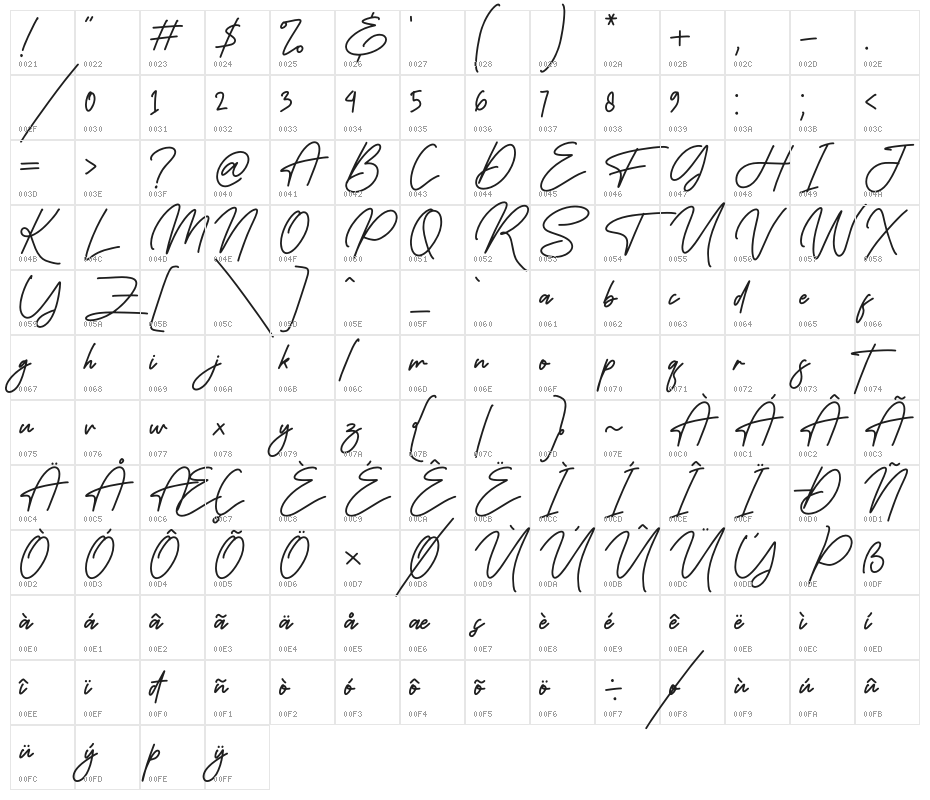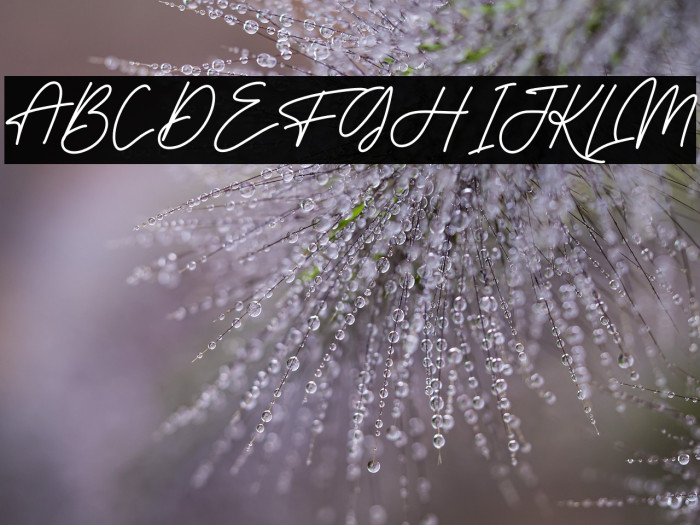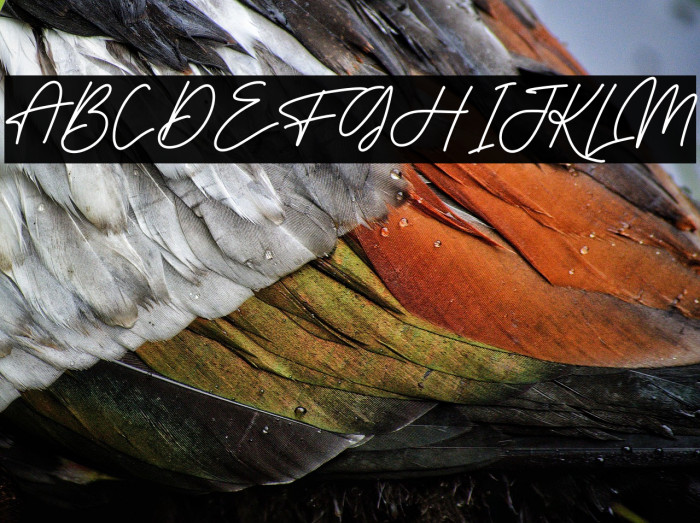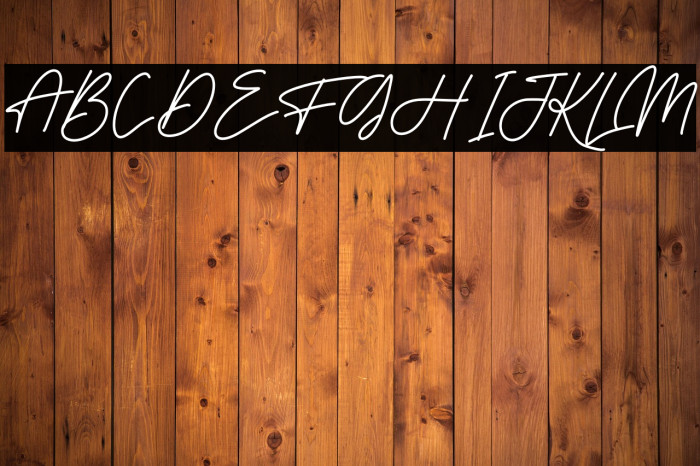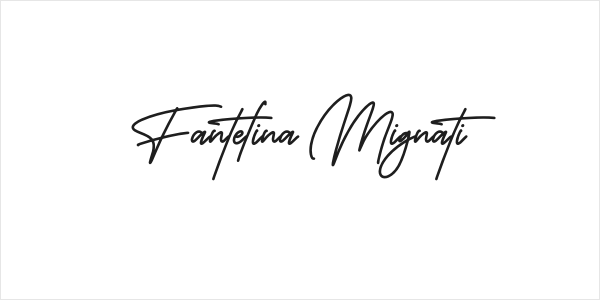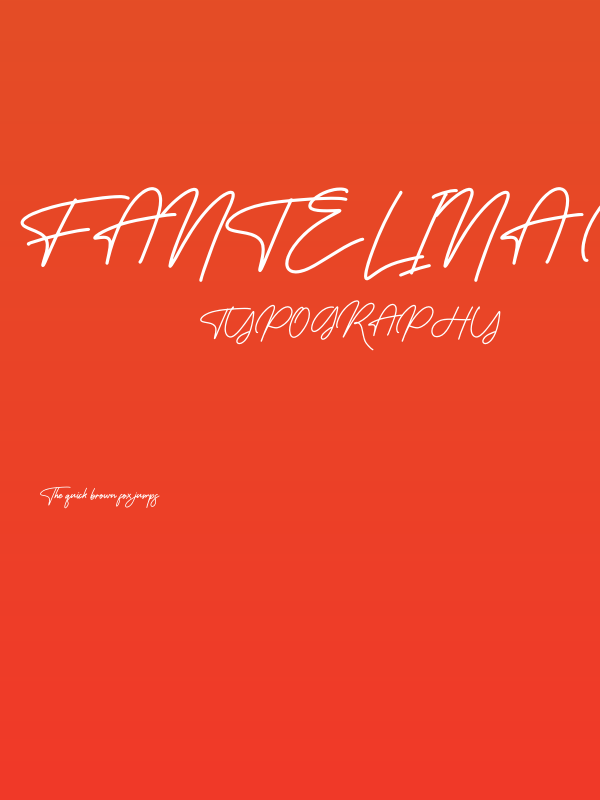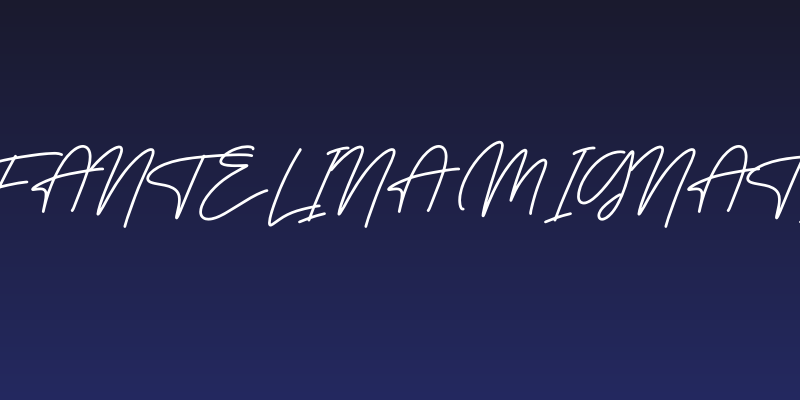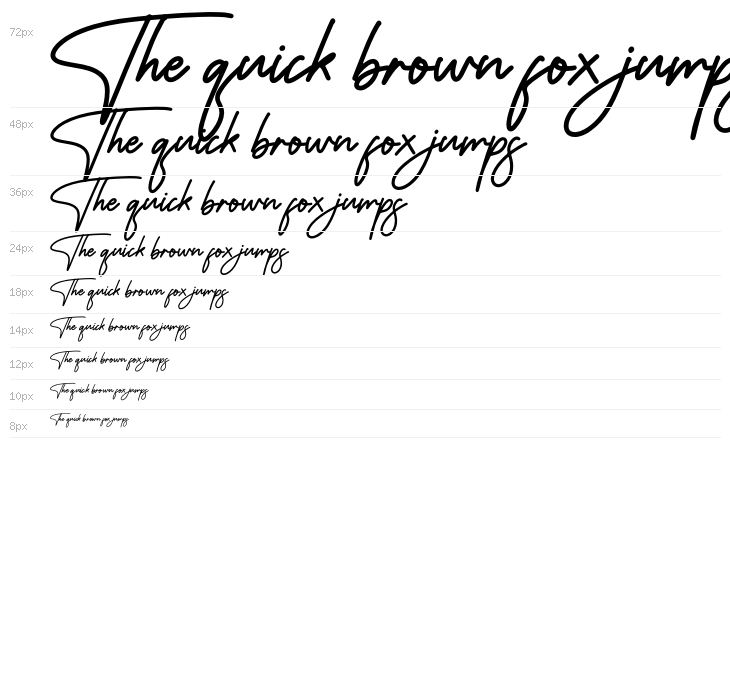
Fantelina Mignati Font
Fantelina Mignati Description
This font features a dynamic and fluid handwritten style, characterized by its elegant and flowing script. The uppercase letters exhibit a graceful, cursive form with a slight slant, giving them a sophisticated appearance. The lowercase letters maintain a consistent style, with smooth, connected strokes that enhance the font's natural handwriting feel. Numbers and special characters are crafted with the same attention to detail, ensuring a cohesive look across all elements. The overall design is both stylish and legible, making it suitable for a variety of creative applications.
| Overall Style | Elegant, Handwritten |
| Proposed Projects | Ideal for wedding invitations, personal branding, greeting cards, and elegant packaging designs. |